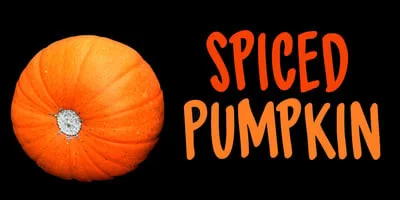
Spiced Pumpkin Font
Spiced Pumpkin Font is perfect for autumn festival posters, Halloween party invitations, harvest season marketing, cozy café branding, pumpkin spice product packaging, fall wedding stationery, seasonal restaurant menus, Thanksgiving greeting cards, artisan bakery signage, and warm autumn lifestyle campaigns.
What makes Spiced Pumpkin Font so exciting is its cozy warmth that beautifully captures the essence of golden autumn days and the comforting embrace of seasonal traditions. This charming display typeface features organic curves, rustic textures, and harvest-inspired letterforms that evoke the rich aromas of cinnamon spice and the golden glow of autumn sunlight, making it the perfect choice for brands that want to communicate seasonal comfort, tradition, and heartwarming nostalgia.
The Spiced Pumpkin Font family includes regular, bold, weathered, and decorative versions, along with autumn leaves, pumpkin motifs, harvest symbols, and seasonal ornamental elements. Each style maintains the font's signature cozy character while providing designers with versatile options for creating genuinely warming communications that celebrate the magic of fall's most beloved traditions.
Whether you're designing for seasonal businesses or autumn event planners, Spiced Pumpkin Font brings authentic harvest warmth to every project. The font's lovingly crafted letterforms ensure excellent readability while maintaining its distinctive seasonal character that resonates with audiences who cherish autumn's golden beauty and comforting traditions.
This seasonally inspired typeface works beautifully across both rustic print materials and digital autumn campaigns. The Spiced Pumpkin Font maintains its cozy appeal whether used in handcrafted festival signage or warm social media graphics, making it essential for brands that celebrate the golden season and its cherished traditions.
Embrace autumn's golden magic with Spiced Pumpkin Font and experience typography that warms hearts like the first sip of perfectly spiced cider.